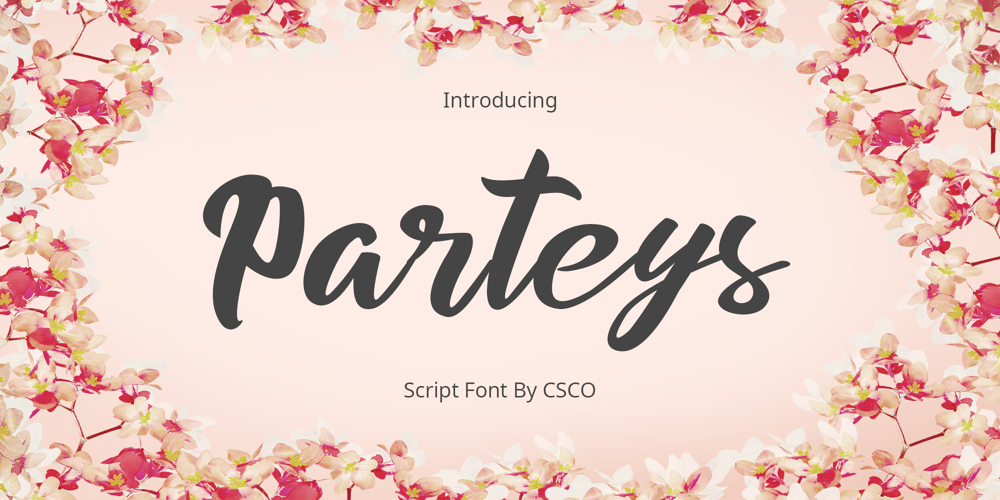
Parteys
Parteys font
Parteys Font Family was designed by Trio Nazzar Saputra, Wahyu Hadi Yuana and published by Craft Supply Co. Parteys contains 2 styles and family package options. Introducing Parteys – Brush ScriptDynamic and Captivating: Parteys – Brush Script is a font that exudes dynamism with its varied stroke widths, making it perfect for creating eye-catching displays.Expressive Brush Strokes: This font boasts expressive brush strokes that give your text a lively and energetic appearance, making it ideal for projects that demand a touch of excitement.Versatile Design Possibilities: Parteys – Brush Script offers versatility in design, suitable for a wide range of creative applications, from posters and invitations to branding and social media graphics.